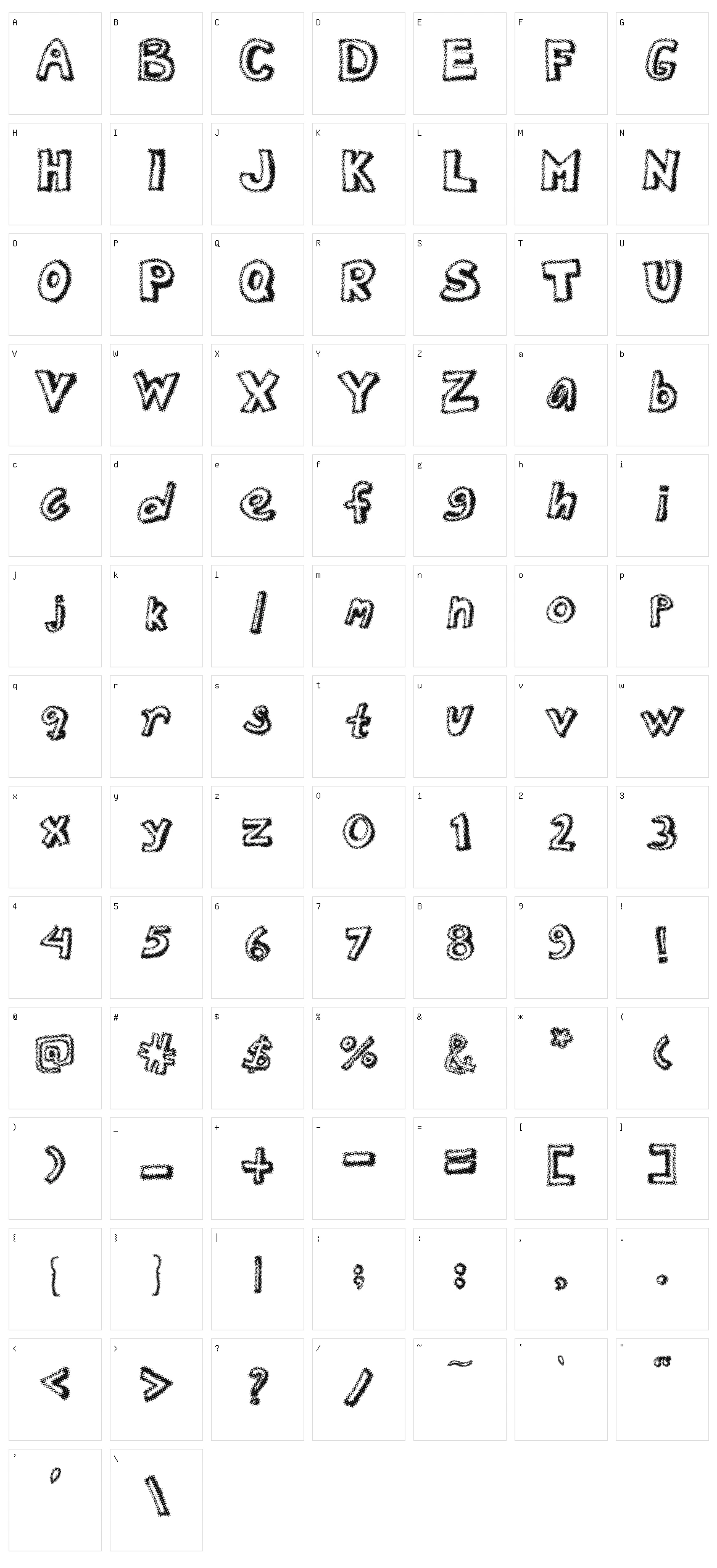
The free font Dotted Newspaper is carefully designed by Jansku Boy, showcasing a thoughtful balance of creativity and usability and falls under the Cartoon font style. When you download the ZIP file, it contains only 460.65 KB of font files, making it lightweight and quick to download. Please review the license details below to understand permitted usage and distribution rights. If license information is not available, we recommend using this font for personal projects only or contacting the author directly for commercial usage permissions.